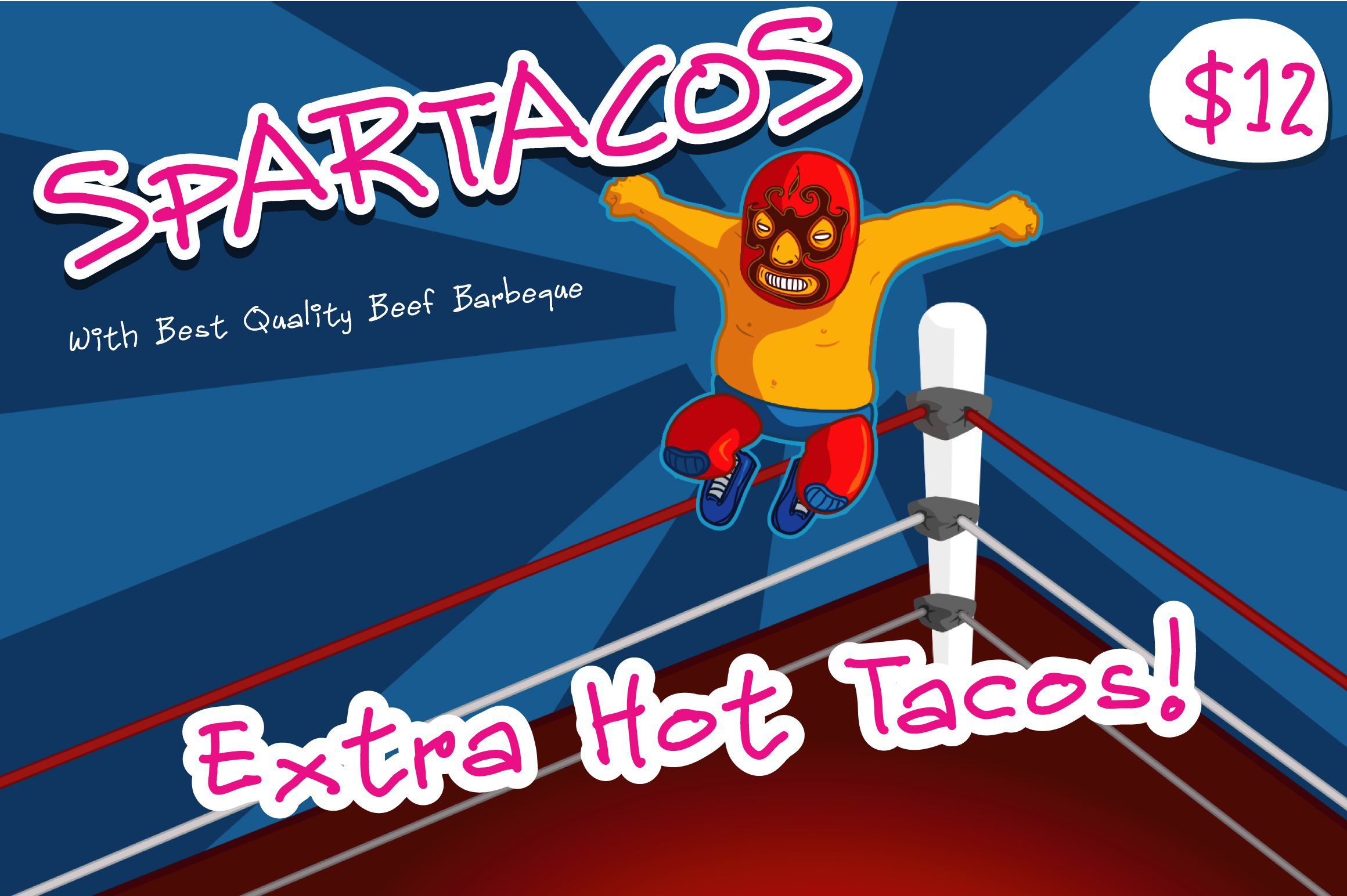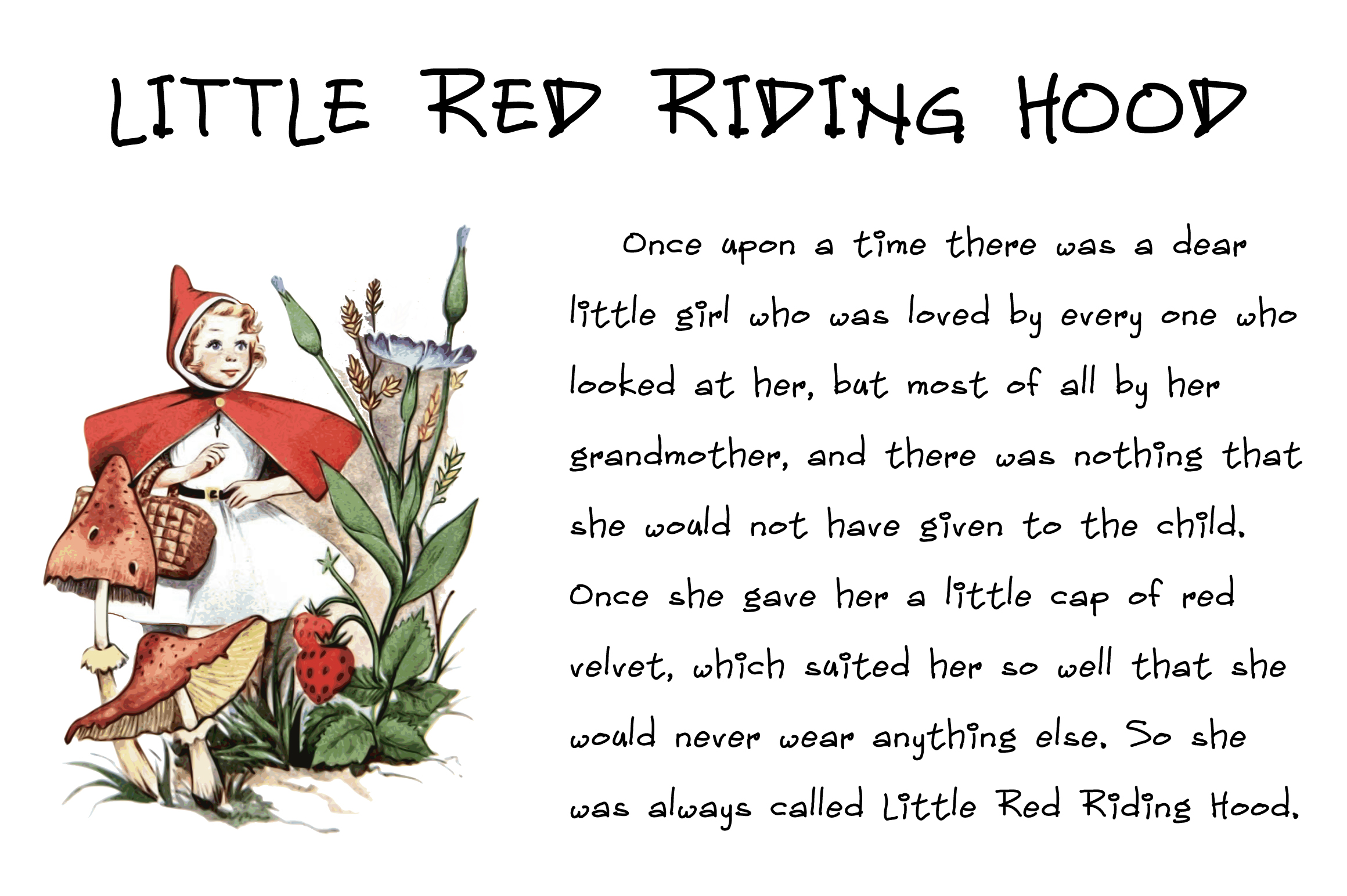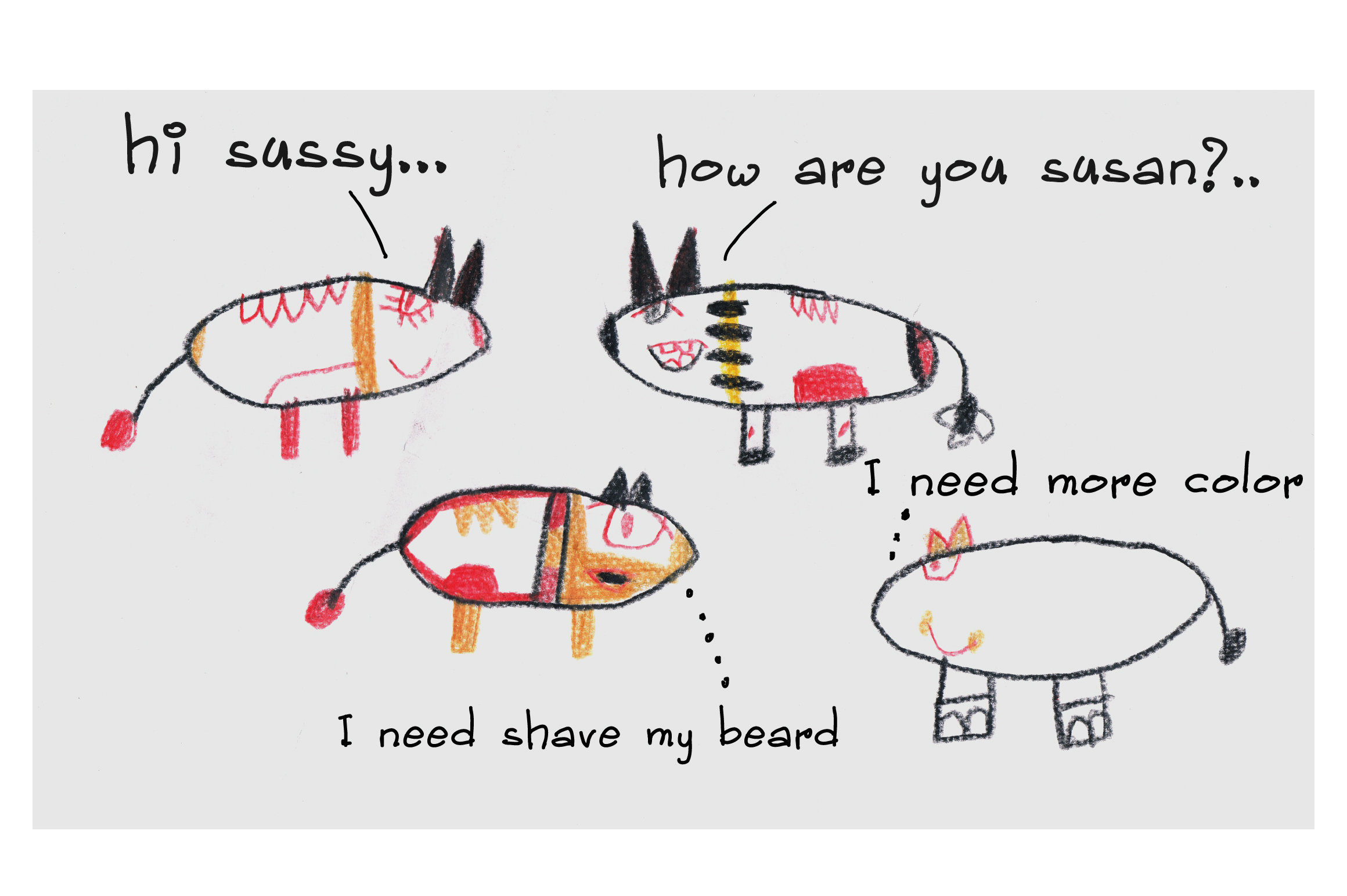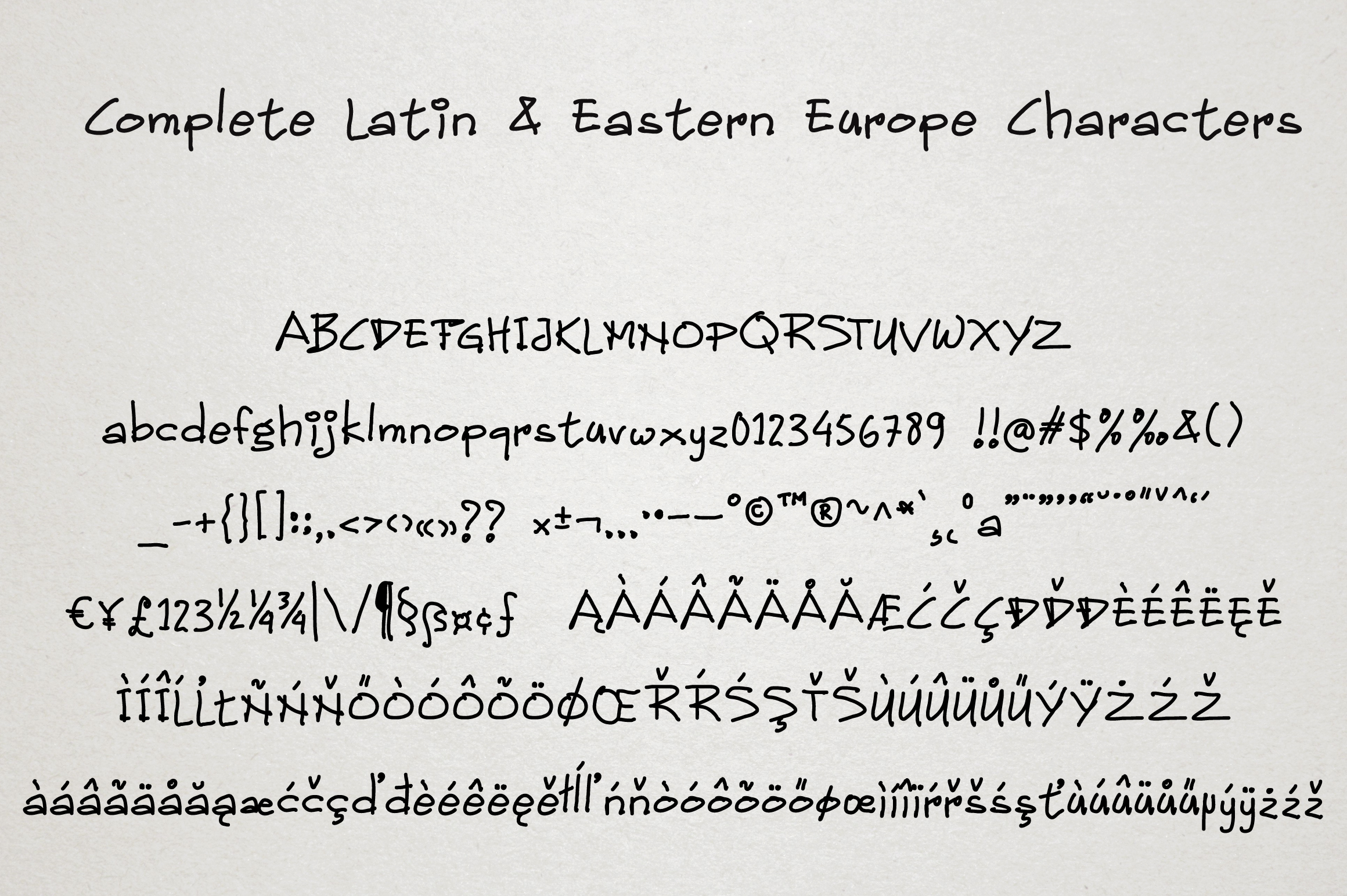
Introducing Children Handwritten Font: A Delightful and Youthful Addition to Your Designs
Are you looking for a font that can add a touch of innocence and playfulness to your designs? Look no further than the Children Handwritten Font. This delightful and youthful handwritten font is perfect for designers and crafters who want to create digital and print projects that exude a childlike vibe. In this article, we’ll explore the features and benefits of the Children Handwritten Font and how it can elevate your designs to the next level.
What Makes Children Handwritten Font Special?
The Children Handwritten Font is a carefully crafted font that is both legible and neat, making it an ideal body font for a wide range of design projects. Its handwritten style gives it a unique and personal touch that can add character to any design. Whether you’re working on a digital project, such as a website or social media graphics, or a print project, like a brochure or poster, this font is sure to make your design stand out.
Key Features of Children Handwritten Font
- Delightful and Youthful Design: The Children Handwritten Font has a playful and innocent design that is perfect for creating designs that appeal to children and adults alike.
- Legible and Neat: The font is carefully crafted to be easy to read, making it perfect for use as a body font in a wide range of design projects.
- Handwritten Style: The font’s handwritten style gives it a unique and personal touch that can add character to any design.
- Versatile: The Children Handwritten Font is suitable for use in both digital and print projects, making it a versatile addition to any designer’s toolkit.
Benefits of Using Children Handwritten Font
Using the Children Handwritten Font in your designs can have a range of benefits, including:
- Adding a Touch of Innocence and Playfulness: The font’s childlike design can add a touch of innocence and playfulness to your designs, making them more appealing to your target audience.
- Creating a Personal Connection: The font’s handwritten style can create a personal connection with your audience, making your design feel more approachable and relatable.
- Standing Out from the Crowd: The Children Handwritten Font is a unique and distinctive font that can help your design stand out from the crowd and grab the attention of your audience.
How to Use Children Handwritten Font in Your Designs
Using the Children Handwritten Font in your designs is easy. Here are a few tips to get you started:
- Use it as a Body Font: The Children Handwritten Font is perfect for use as a body font in a wide range of design projects, including websites, social media graphics, and print materials.
- Pair it with Other Fonts: The font can be paired with other fonts to create a unique and visually appealing design.
- Experiment with Different Sizes and Colors: The font can be used in a range of sizes and colors to create a design that is tailored to your specific needs.
The Children Handwritten Font is a delightful and youthful addition to any design project. Its legible and neat design makes it perfect for use as a body font, while its handwritten style gives it a unique and personal touch. Whether you’re working on a digital or print project, this font is sure to add a touch of innocence and playfulness to your design. So why not give it a try and see how it can elevate your designs to the next level?